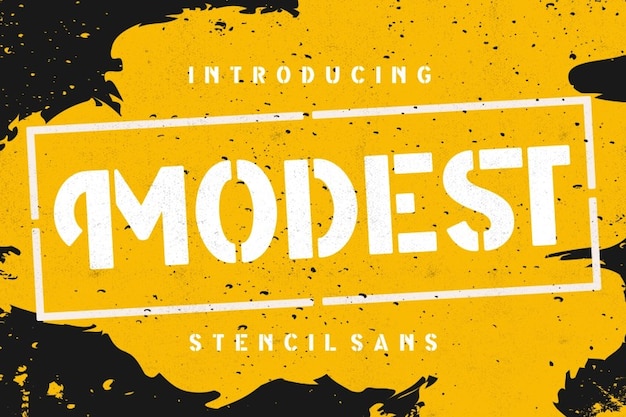
Modest Font
Creatype Studio
Modest is like a font that's all about the beauty of simplicity. It's a modern stencil font with clean lines and a straightforward design. Each letter exudes a sense of minimalist elegance, making it perfect for when you want your text to make a statement without fuss. Modest is the go-to choice for adding a touch of contemporary style to your designs, where less is definitely more.